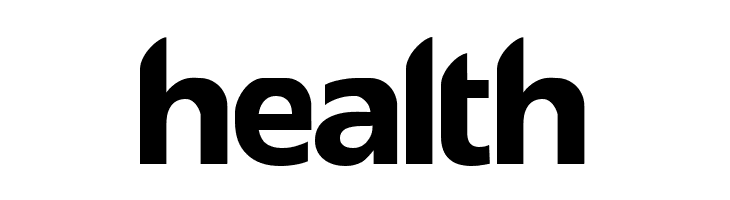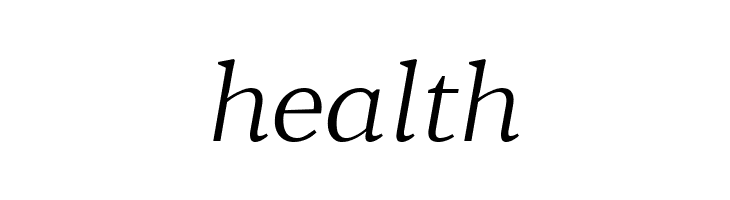
( Trame - Jessica Goodwin - www.trame.ch )
A bold, modern sans-serif font with geometric shapes and rounded edges.
( Typodermic Fonts - Ray Larabie - www.typodermicfonts.com/ )
A sleek, modern italic font with consistent stroke width and elegant design.
( Typodermic Fonts - Ray Larabie - www.typodermicfonts.com/ )
A futuristic, geometric font with rounded edges and a sleek, modern design.
( Vlad Viperov )
A modern, sleek font with elongated, narrow characters and a minimalist aesthetic.
( Vladimir Fedotov )
A sophisticated, high-contrast font with elongated, narrow letterforms.
( Ydhra Studio - creativemarket.com/ydhra )
A clean, elegant script font with flowing cursive letters and a sophisticated style.
( Zetafonts - www.zetafonts.com )
A graceful monoline script font with a handwritten style.
( Zetafonts - www.zetafonts.com )
An elegant, light, and italic serif font with a modern touch.
( Zetafonts - www.zetafonts.com )
A refined, light, and italic serif font with high contrast and elegant serifs.
( Zetafonts - www.zetafonts.com )
A thin, modern italic font with a sleek, elegant design.